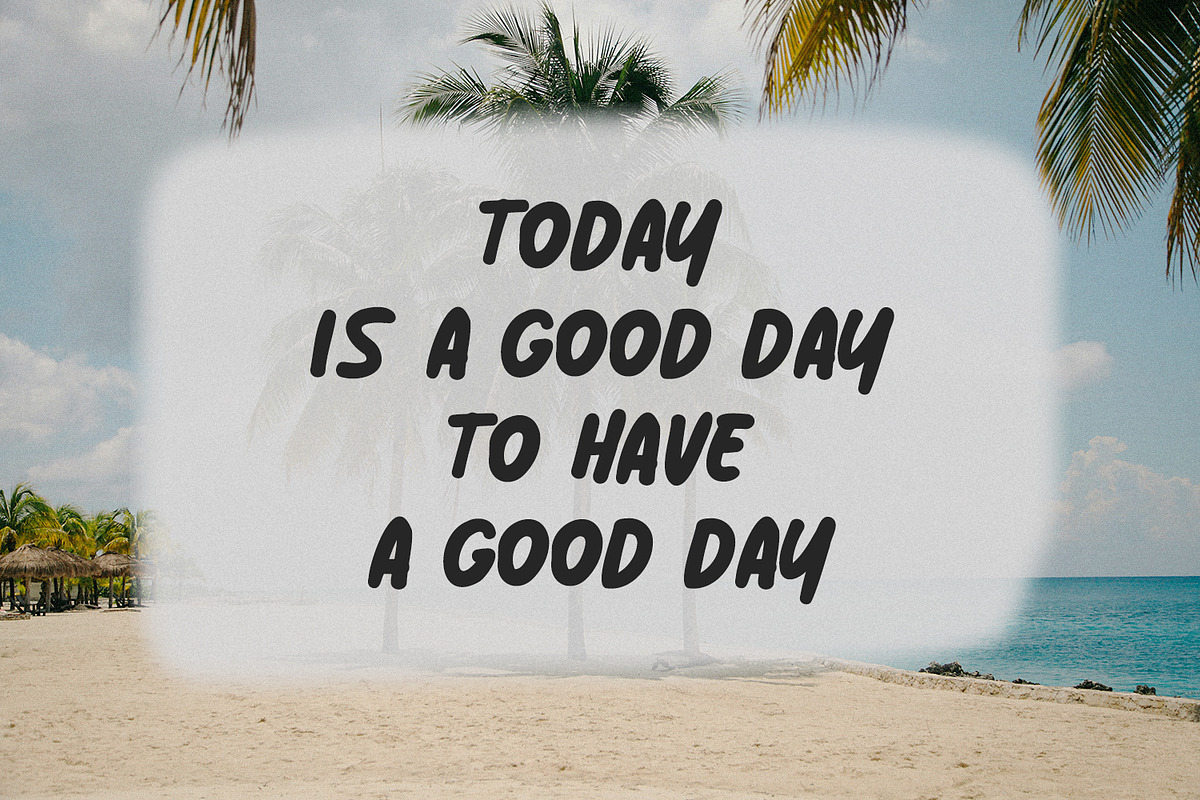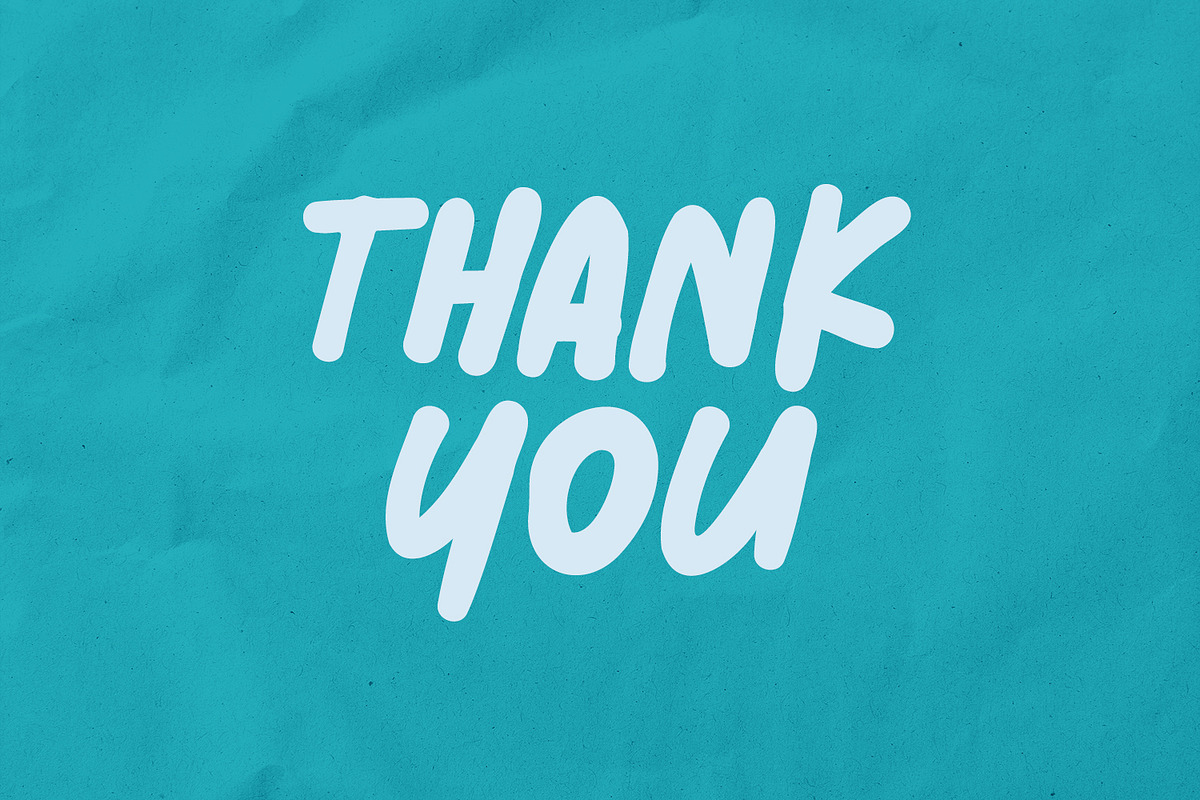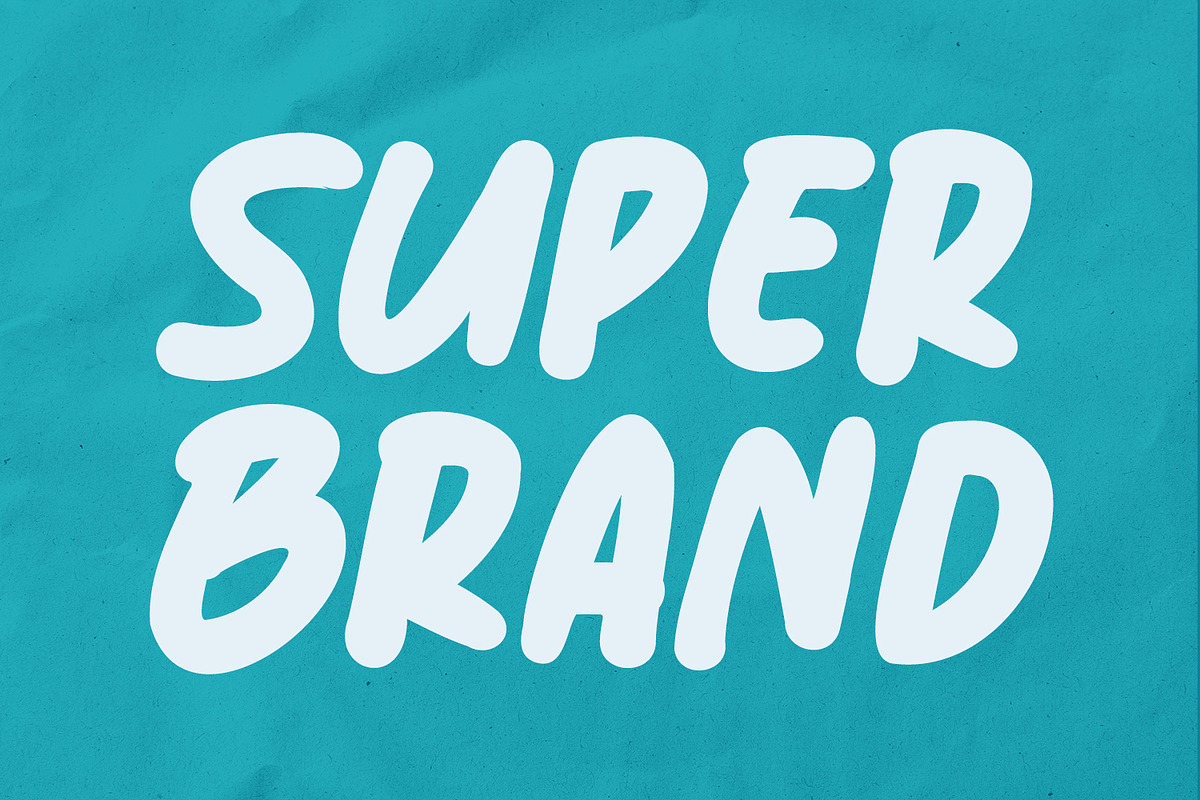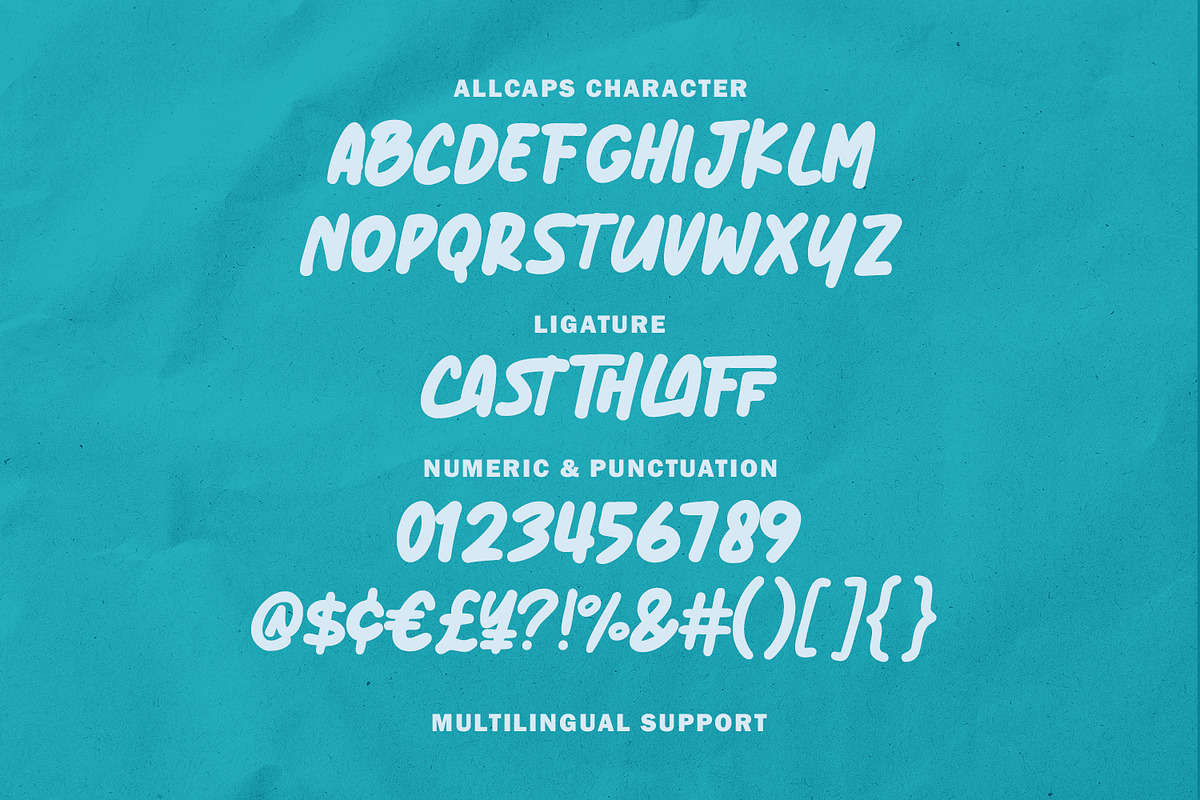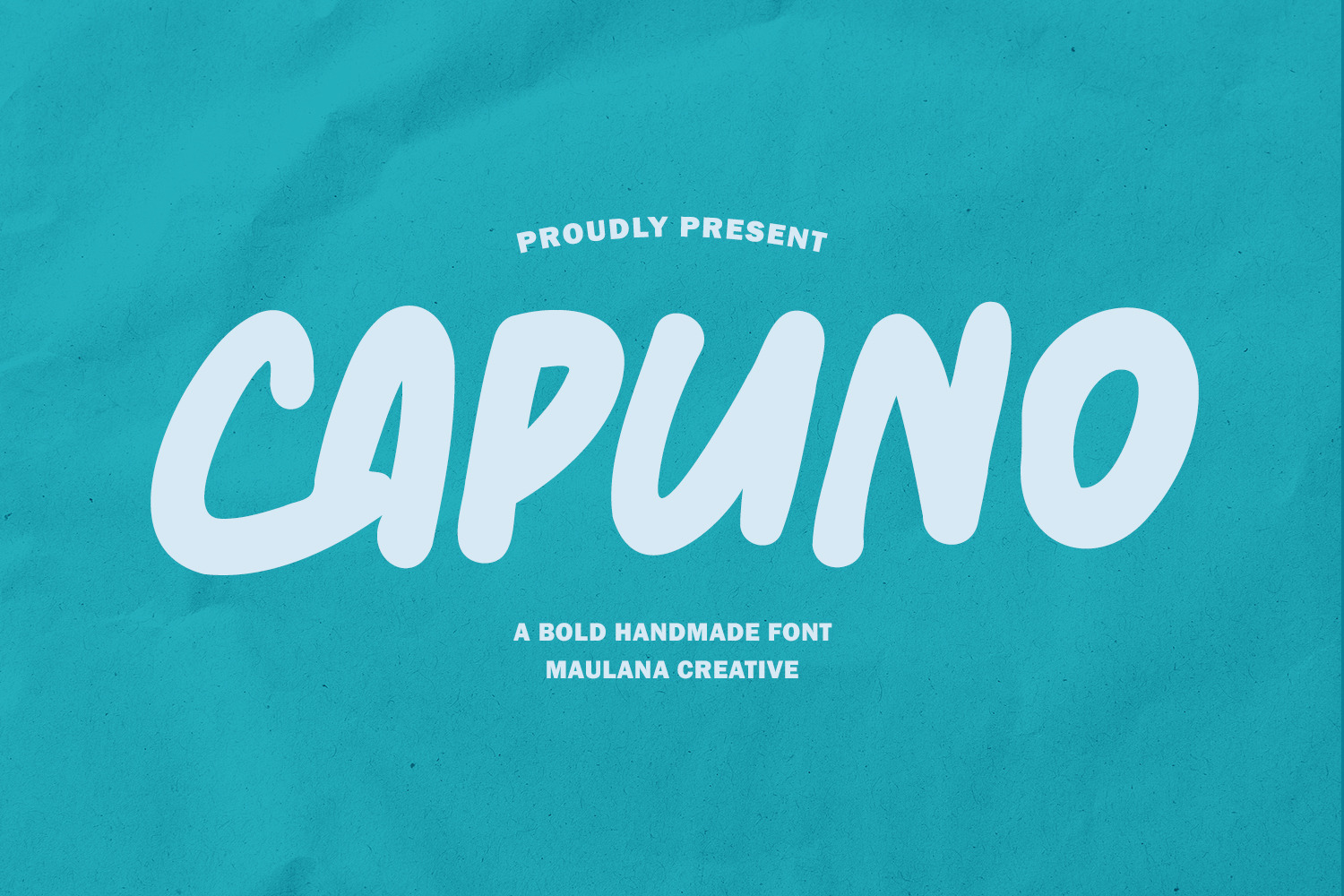
Capuno Bold Handmade Font
Capuno is a bold handmade handwritten font. With bold stroke, fun character with a bit of ligatures. To give you an extra creative work. Capuno font support multilingual more than 100+ language. This font is good for logo design, Social media, Movie Titles, Books Titles, a short text even a long text letter and good for your secondary text font with sans or serif. Make a stunning work with Capuno font.